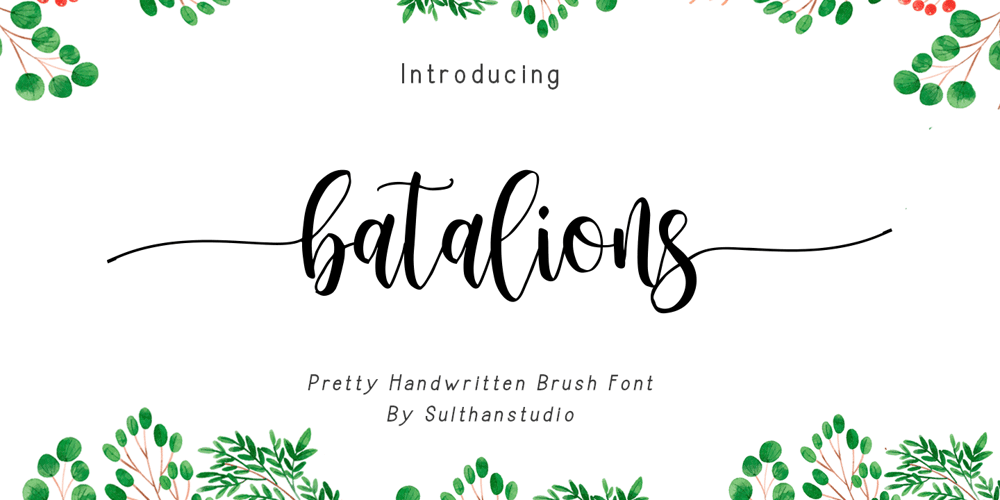
Batalions Font Family was designed by Nasrullah and published by Sulthan Studio. Batalions contains 1 styles and family package options. The natural handwriting font I made is very good for those of you who like or need natural ink script writing, with swashes on the front and back lowercase letters, also uppercase letters have swashes on the front only.complete font with uppercase, lowercase, punctuation numbers, and also language support.